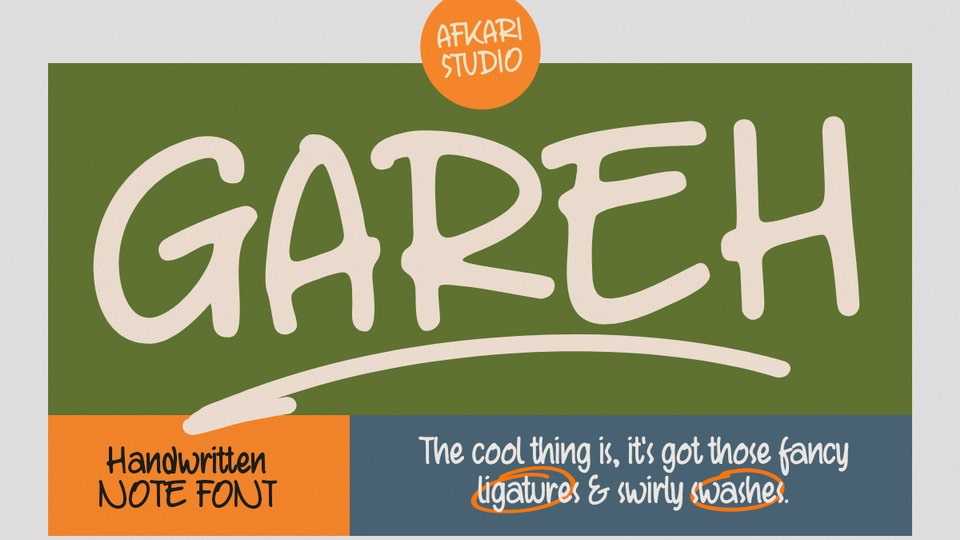
Download Gareh font, a handwritten marker note typeface that merges the liveliness of handwritten script with a unique, natural touch. Crafted to captivate attention and infuse a fresh vibe into your designs, Gareh strikes the perfect balance between the elegance of handwriting and a casual feel.
Designer: Afkari Studio